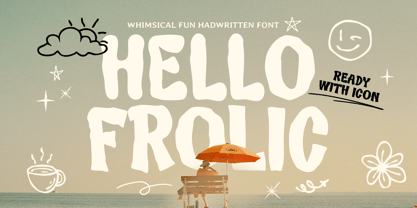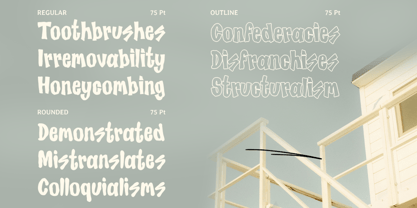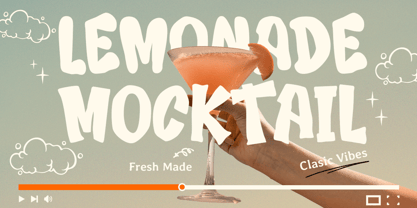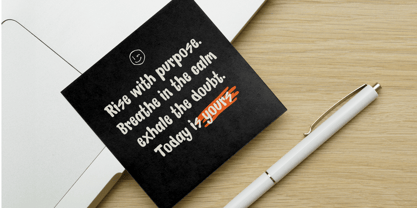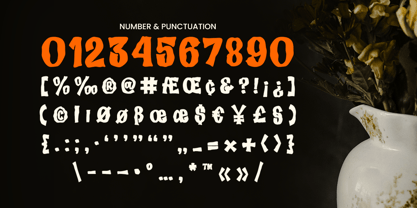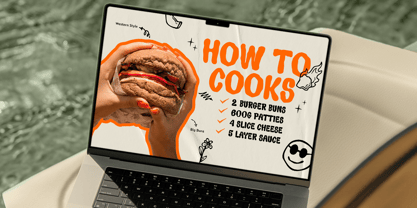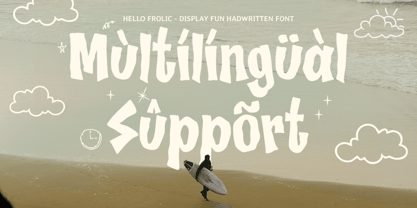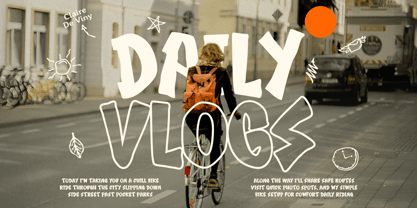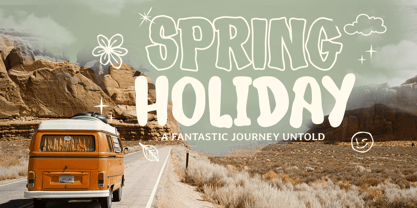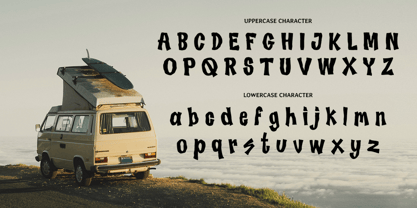
Hello Frolic
by Sensatype Studio
The Hello Frolic Font Family was designed by Zamroni Hamzah and published by Sensatype Studio. Hello Frolic contains 4 styles and family package options. More about this family
HELLO FROLIC is a whimsical fun handwritten font made to bring instant joy to your typography. With its bouncy rhythm, quirky strokes, and friendly personality, this typeface feels warm, casual, and full of playful energy—perfect for designs that want to smile back.
Ideal for kids branding, cute packaging, greeting cards, quotes, stickers, and cheerful social media content, HELLO FROLIC adds a lively handmade touch to logos, posters, invitations, product labels, and classroom-friendly visuals. Its playful look helps your message feel approachable, creative, and memorable.
Whether you’re designing for children’s projects, fun events, creative shops, or colorful lifestyle brands, HELLO FROLIC delivers that whimsical handwritten charm that turns simple words into delightful moments.
HELLO FROLIC – Whimsical Handwritten Font Features
• Whimsical handwritten letterforms with playful bounce
• Ready with Regular, Rounded, Outline, and Icon Collections
• Perfect for kids branding, cute packaging, and fun headlines
• Great for quotes, greeting cards, stickers, and craft projects
• Friendly style for social media, posters, and invitations
• Includes uppercase, lowercase, numerals, and punctuation
• Works beautifully in both print and digital layouts
• OpenType features for smoother creative typography
Designers: Zamroni Hamzah
Foundry: Sensatype Studio